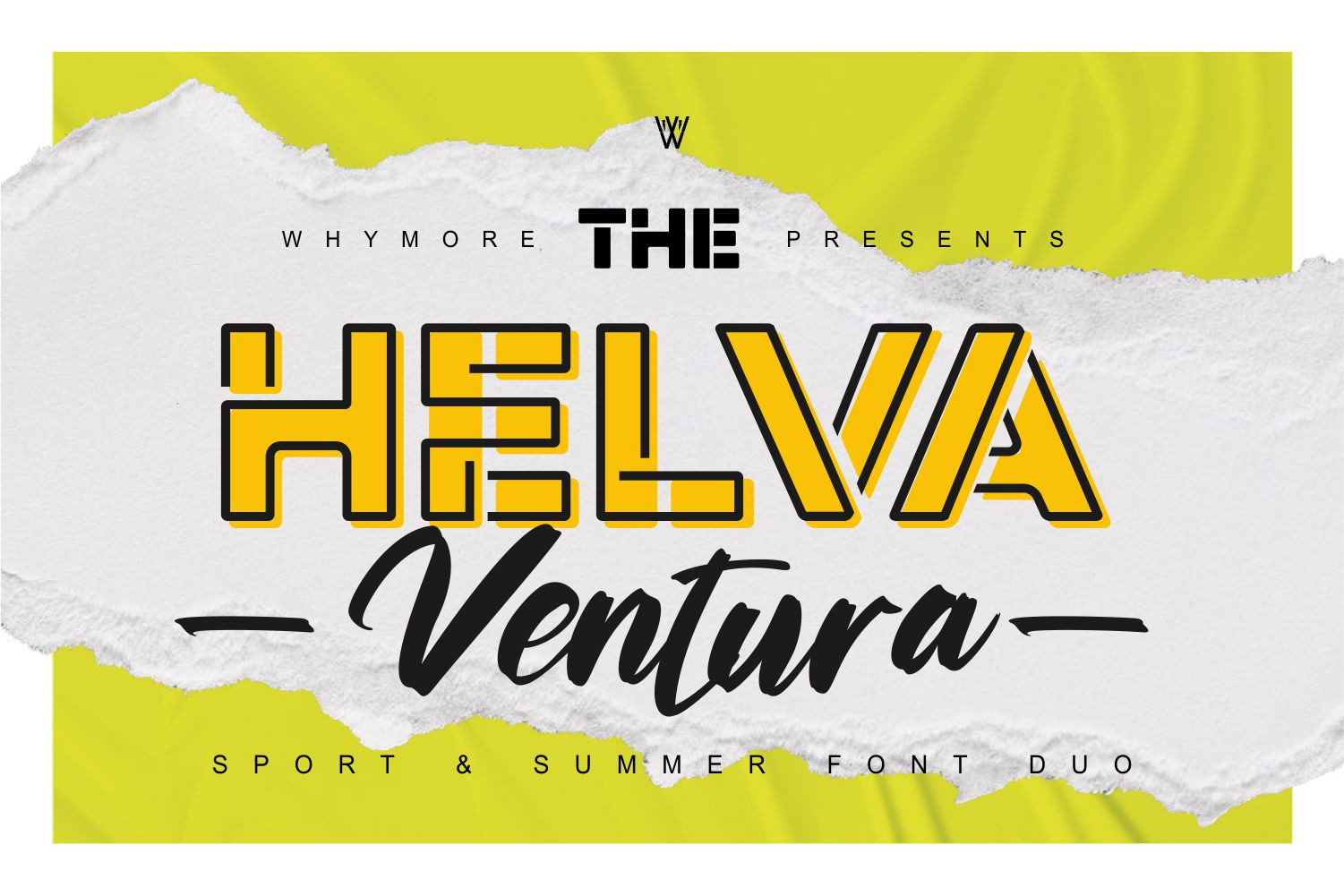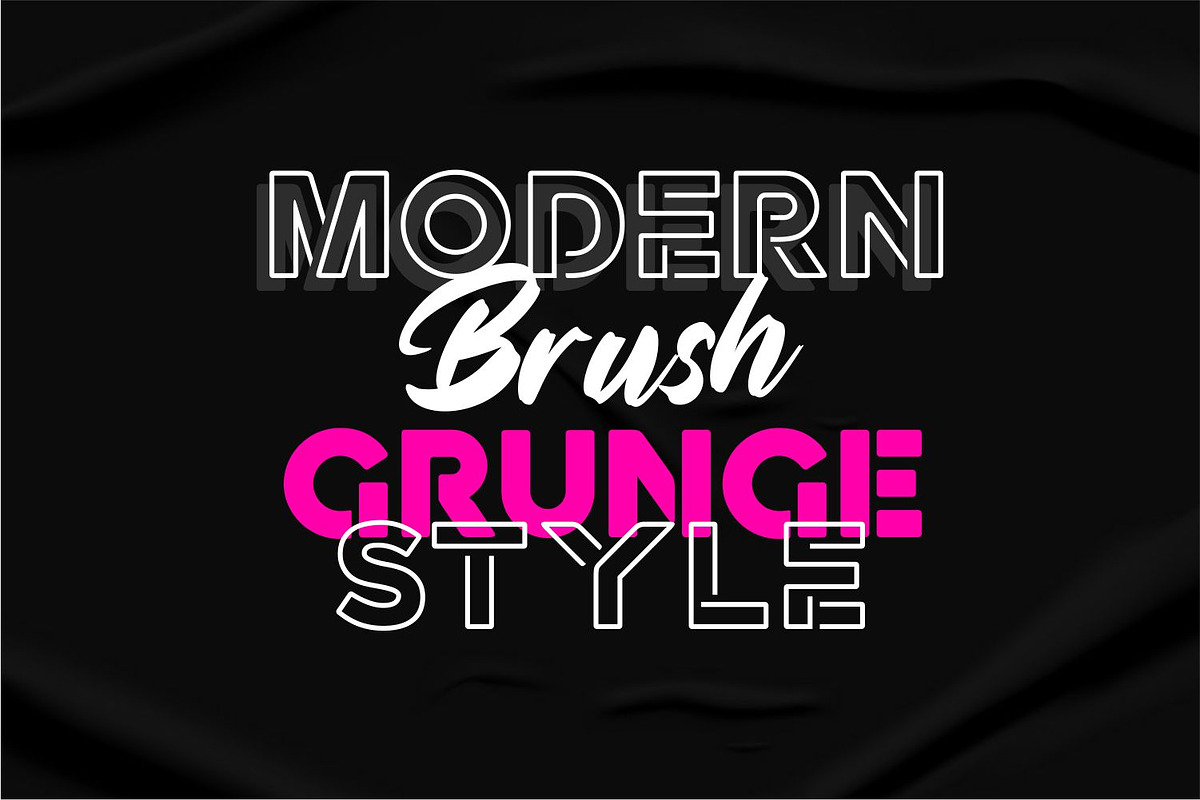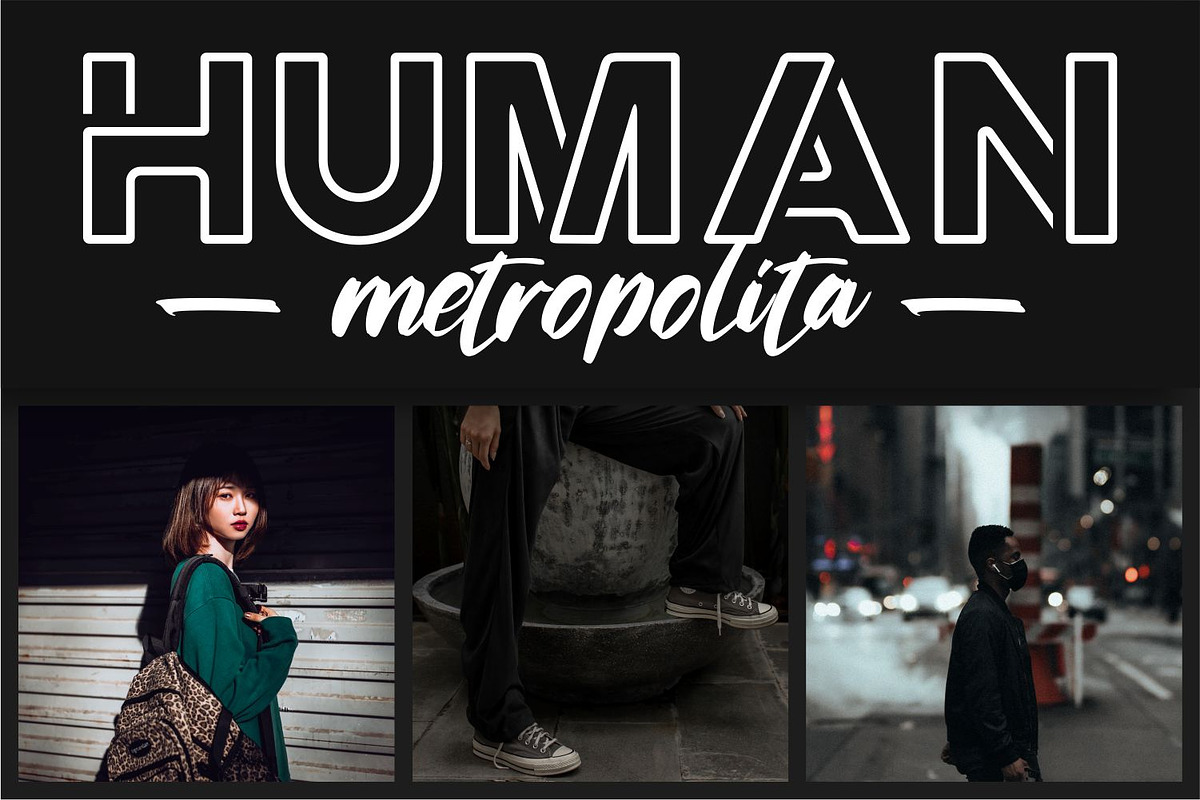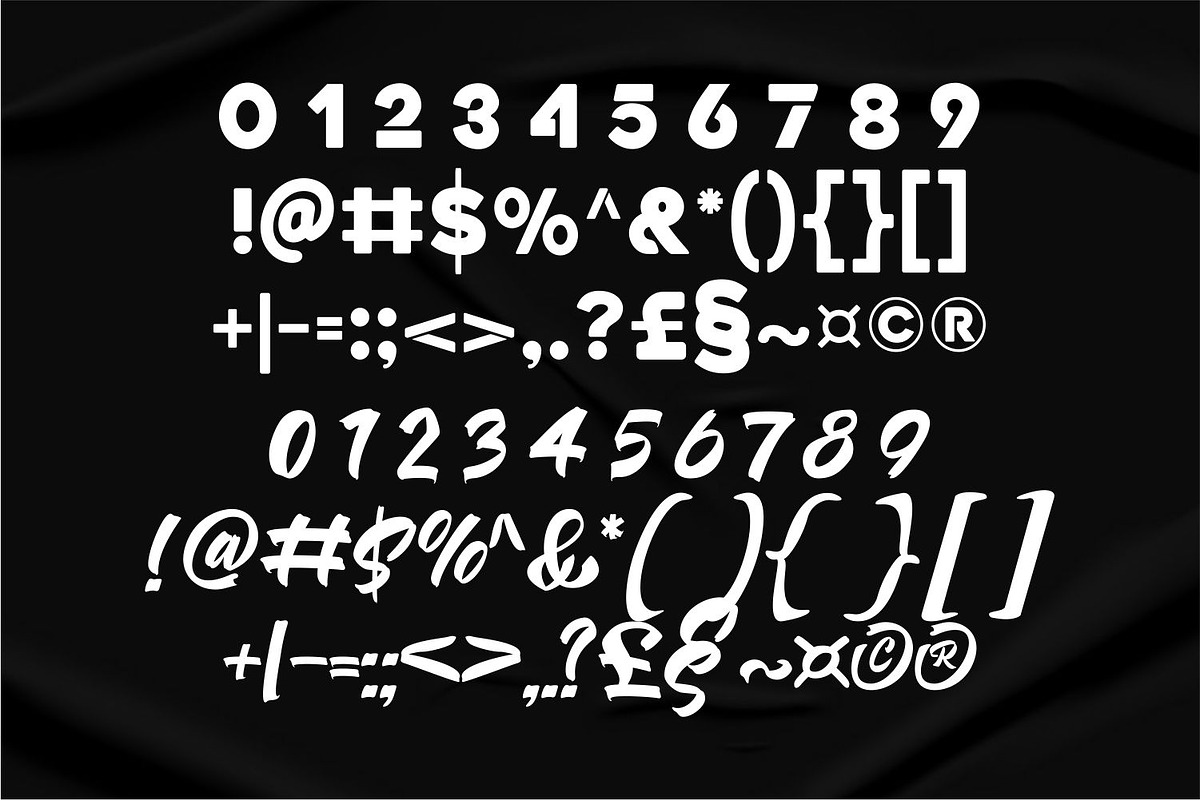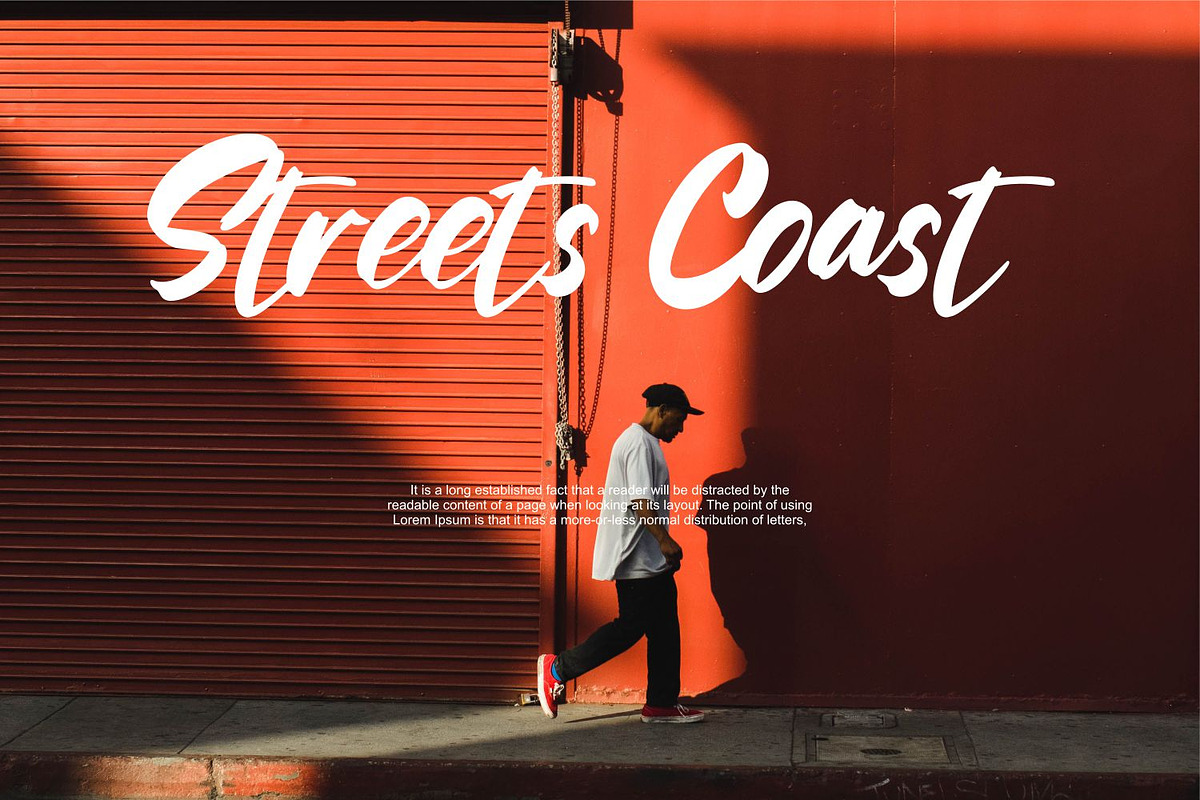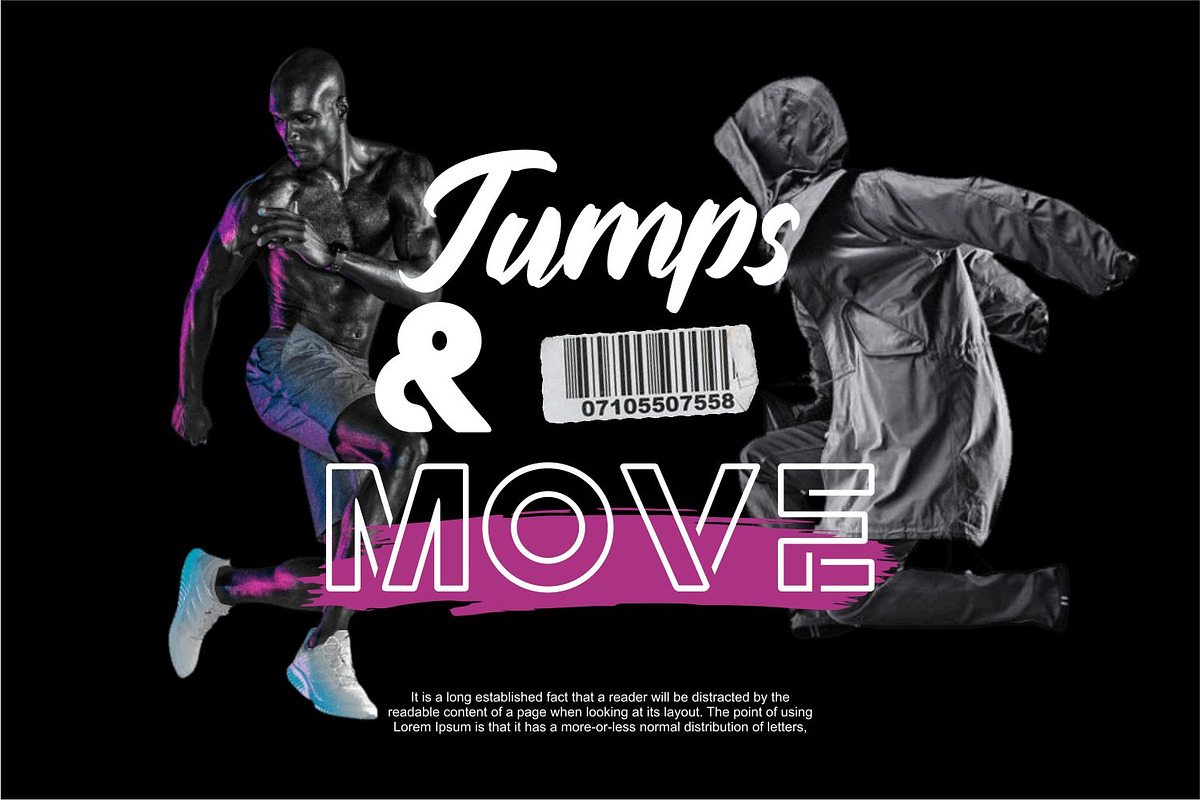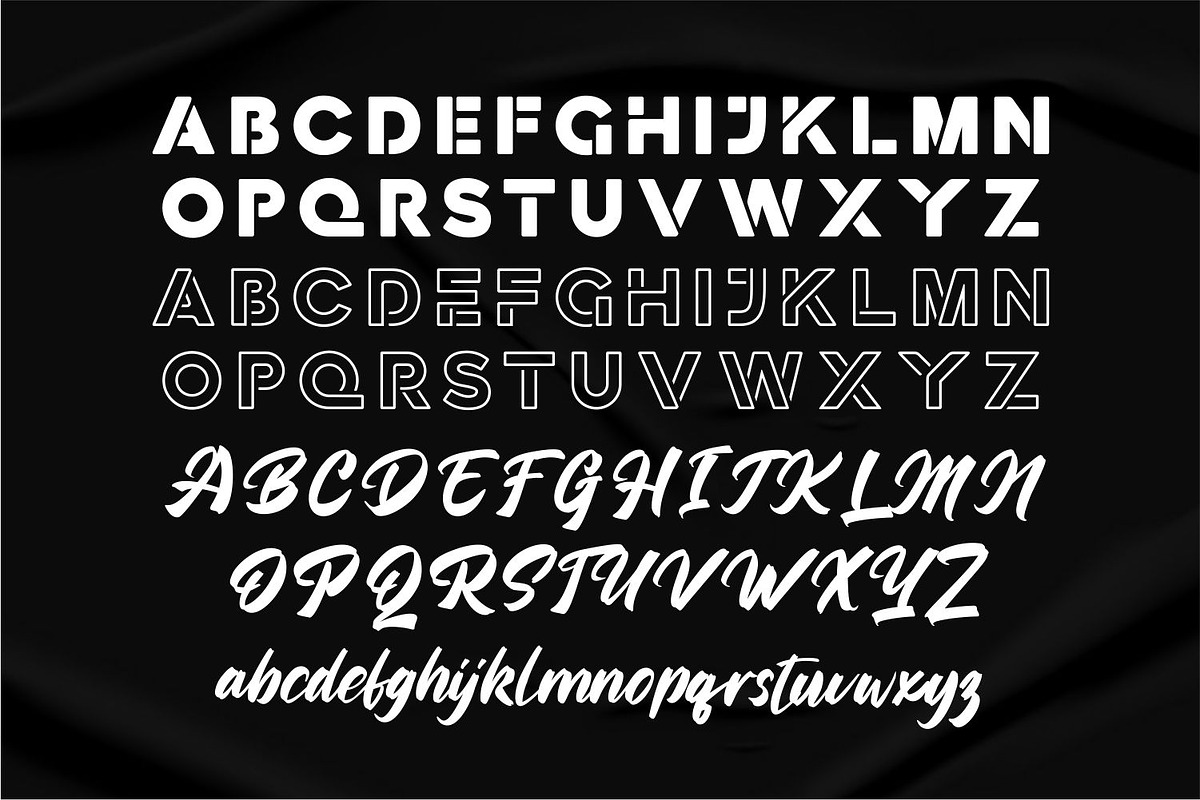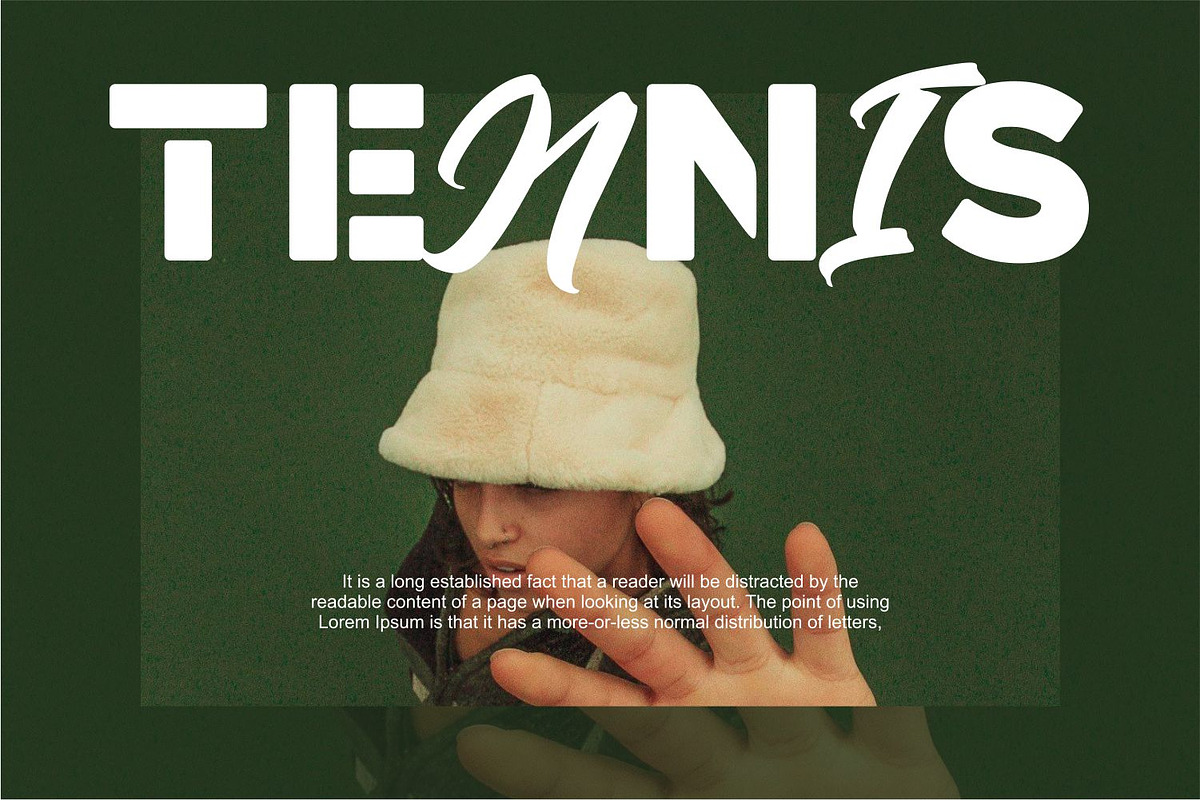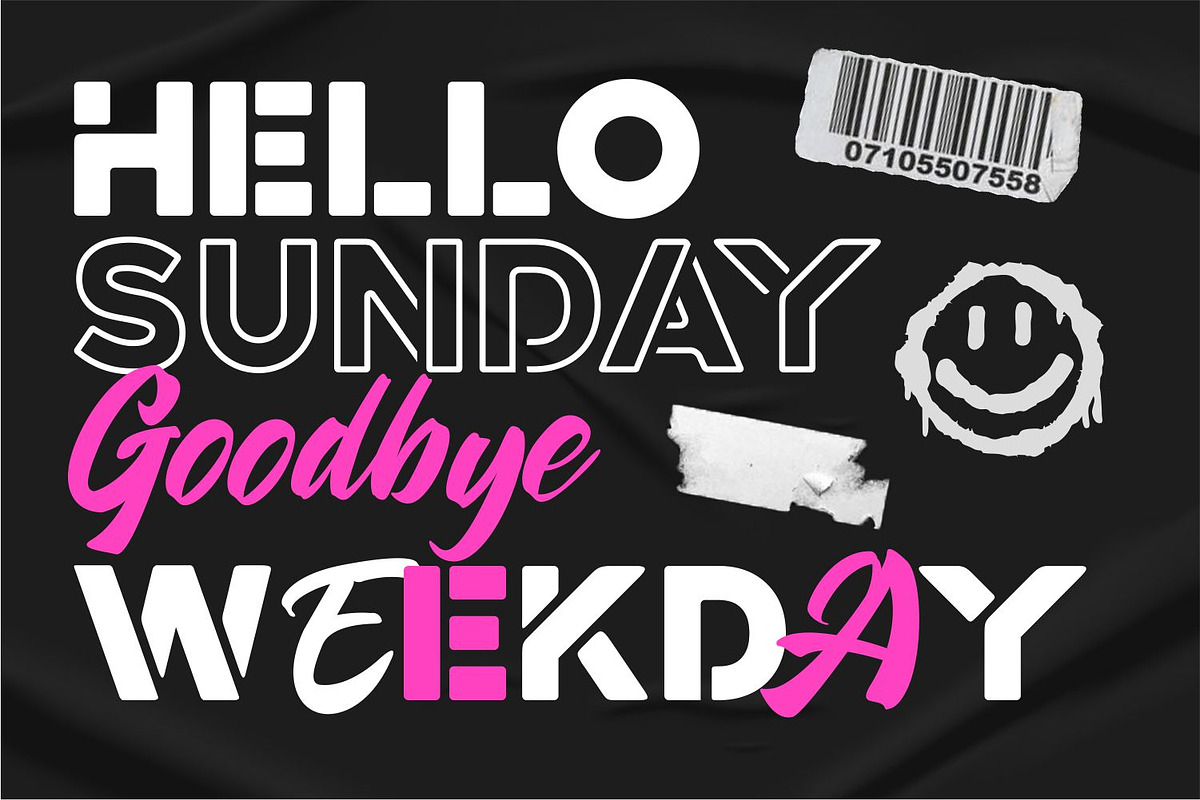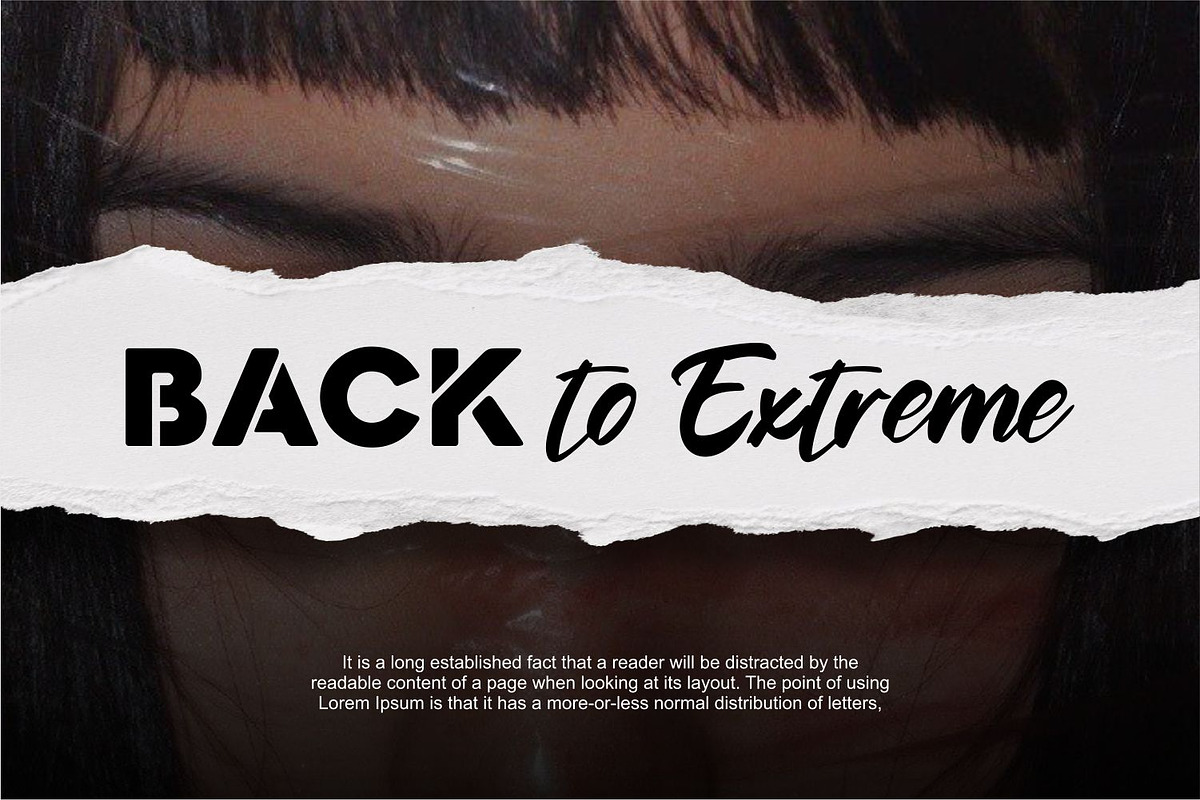
Helva Ventura Font Duo Sans Script
Unleash Your Creativity with Helva Ventura
Helva Ventura is the perfect choice for adding a unique touch to your designs, whether you’re working on sports events, music and movie posters, vacation advertisements, or social media campaigns. Elevate your projects and make them stand out with this exceptional font.